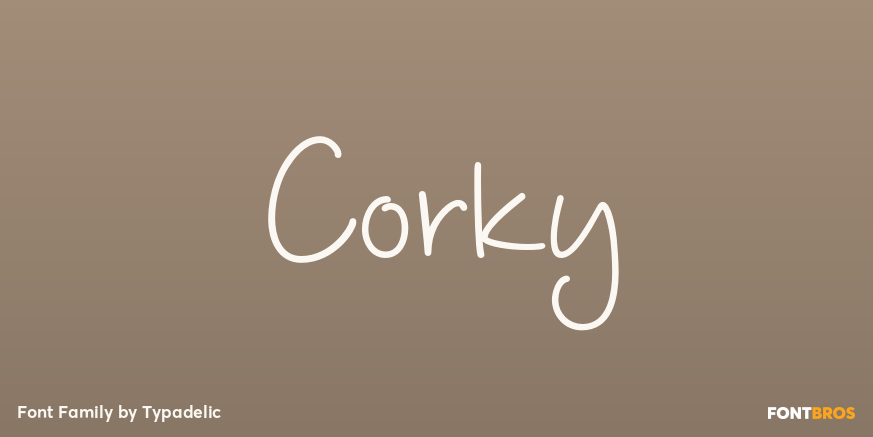
HomeFont BrosHandwrittenCorky HandwrittenScripts: CasualSans SerifWacky Corky FacebookXPinterestWhatsApp 1 of 1 About Corky A typeface based on my own handwriting. Fun, quirky, and very legible.  DOWNLOAD ON FONT BROSThis font is sold and delivered by Font Bros. Font Canyon may earn a commission if you buy through this link. People also explored The Circus Show Monogram Font Reversia Font Bundels Font Galatea Adrenaline Font Simple Box Font Love Valentine Font Prince Frog Font Sunshine Font 280 0 TagsCorkyCorky Font Previous articleZoeNext articleSmartie LEAVE A REPLY Cancel reply Comment: Please enter your comment! Name:* Please enter your name here Email:* You have entered an incorrect email address! Please enter your email address here Website: Save my name, email, and website in this browser for the next time I comment. Personal Use Free Colourbars Personal Use Free Read more about this font Fat Max Personal Use Free Read more about this font Soria Personal Use Free Read more about this font The Brighton Personal Use Free Read more about this font BLOG The 10 Best Handwriting Fonts to Add Personality to Your Designs 10 of the Best Handwriting Fonts for Adding Personality to Your Designs There will undoubtedly be no other better choice than handwriting fonts to give... Best Fonts for T-Shirt Design – Top 2025 Picks How to Install and Use Fonts on Windows, macOS, and Web Projects Free Fonts Risk: Why Free Fonts Can Be Dangerous for Designers